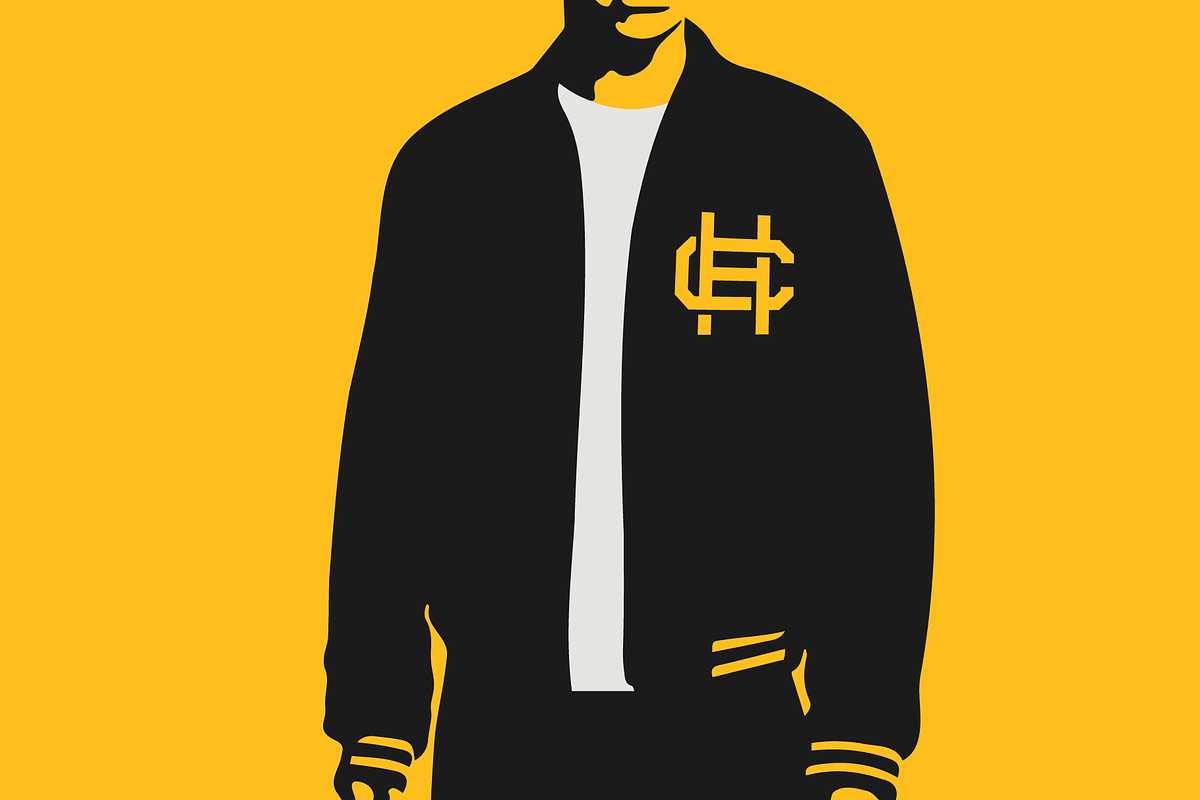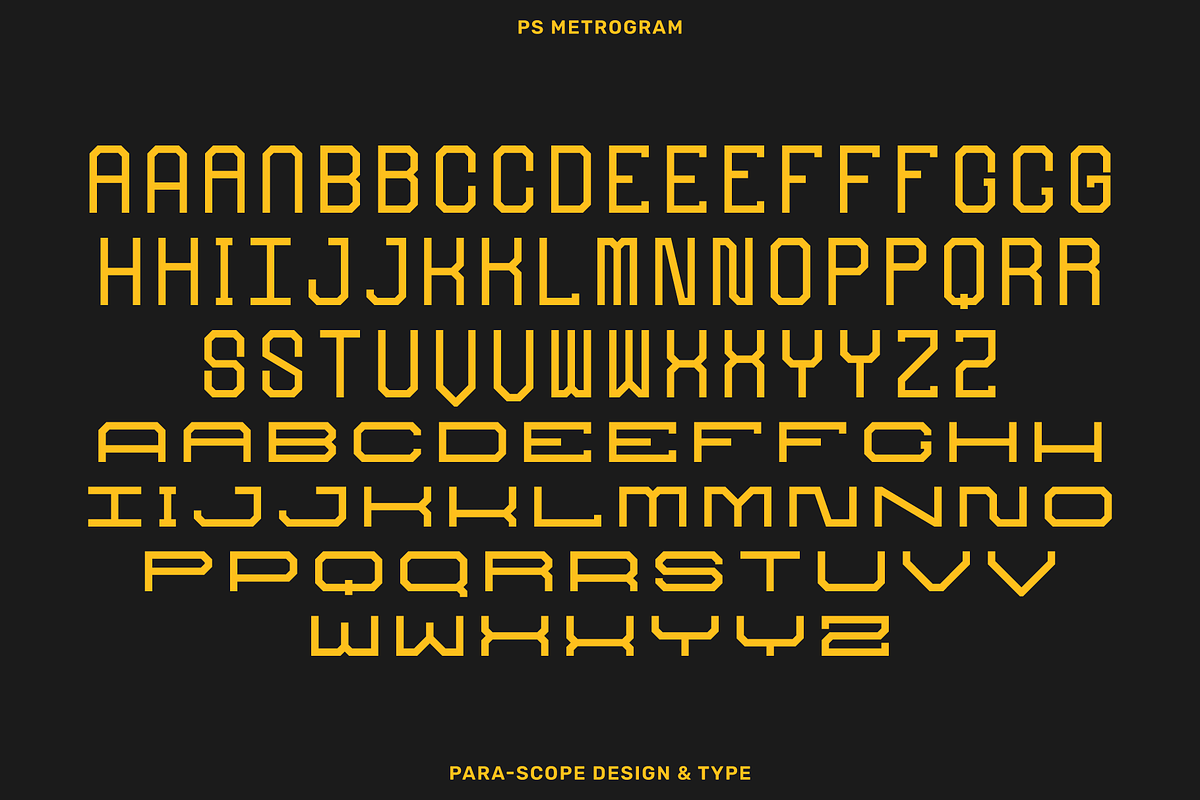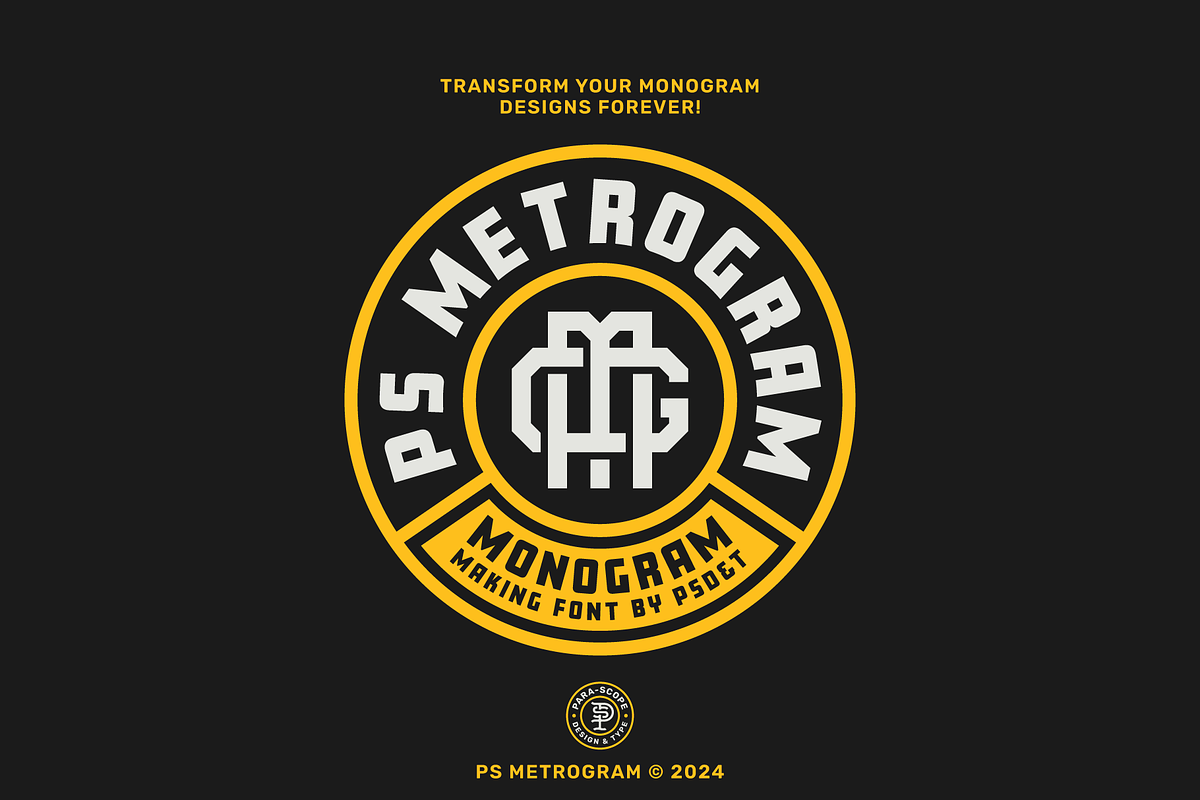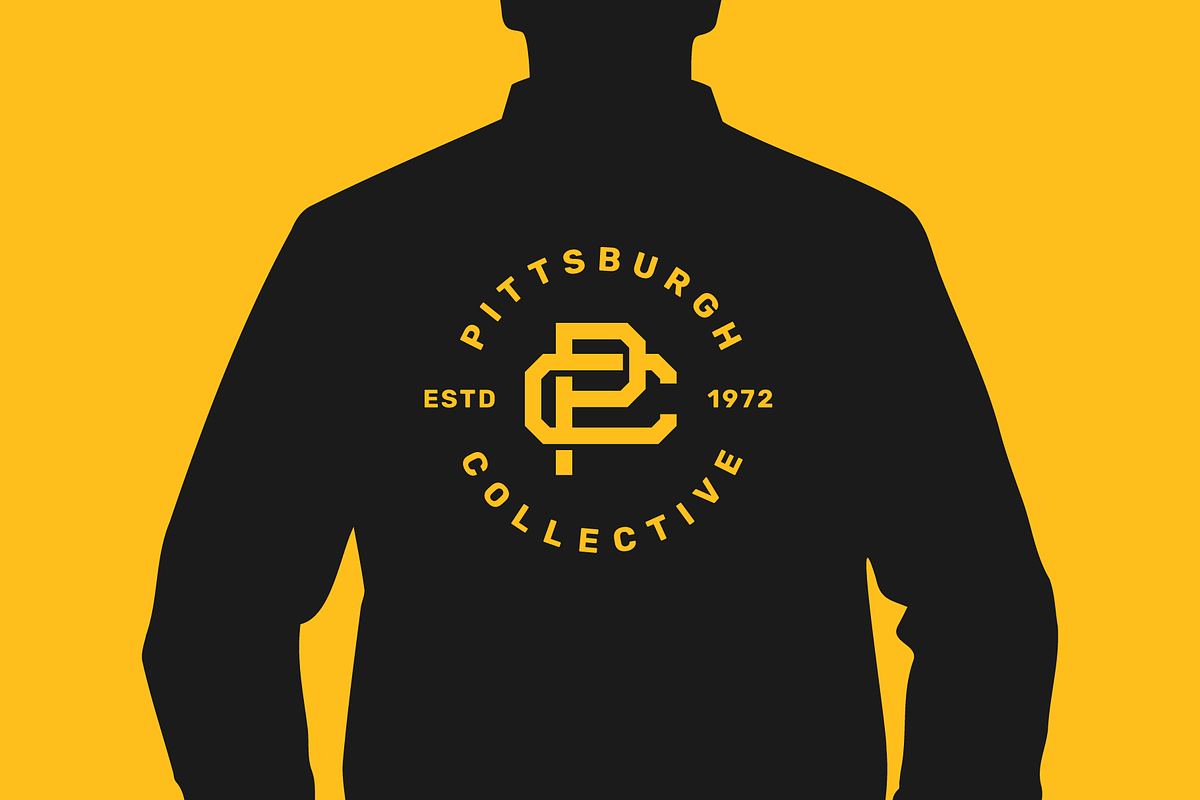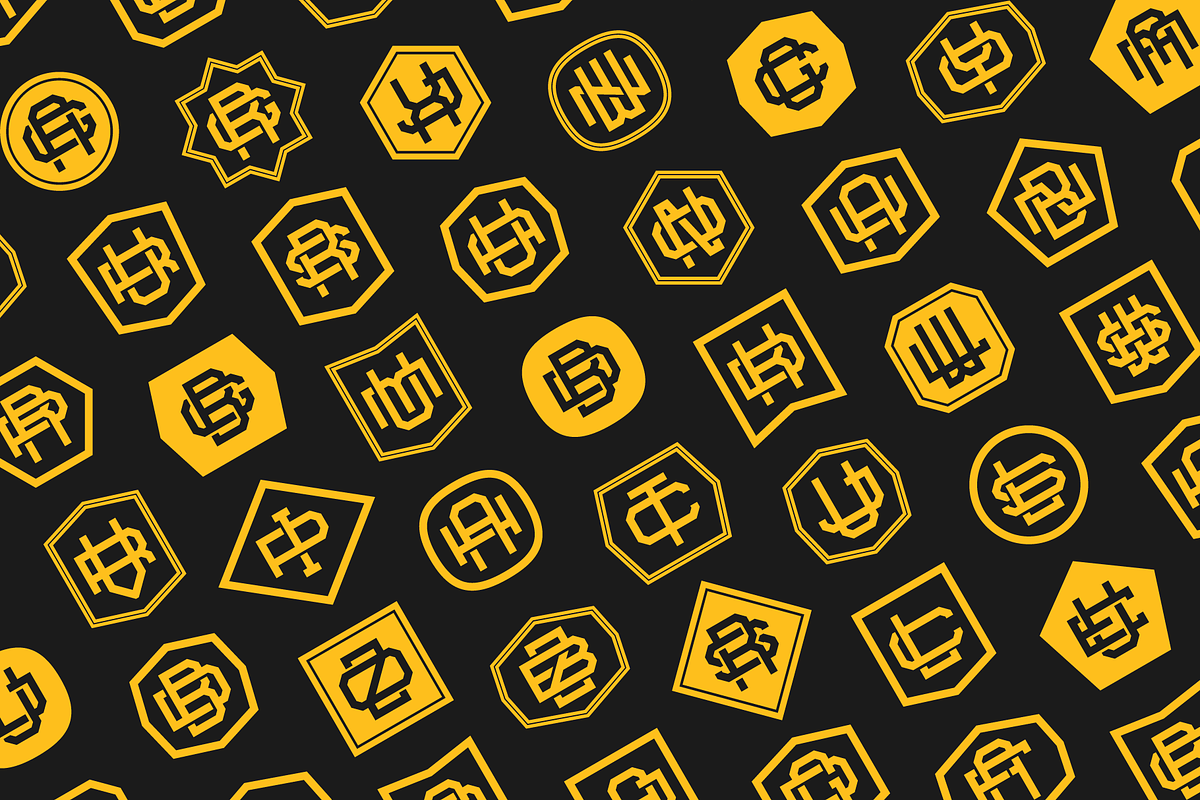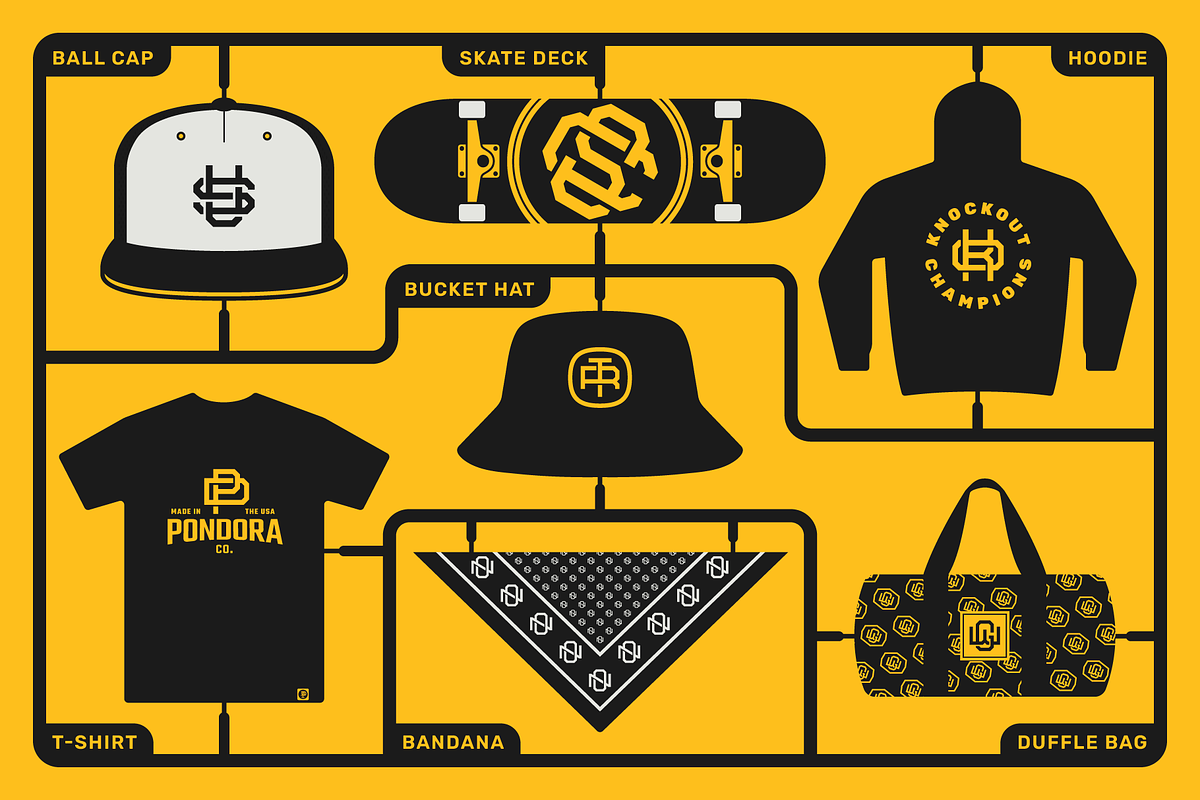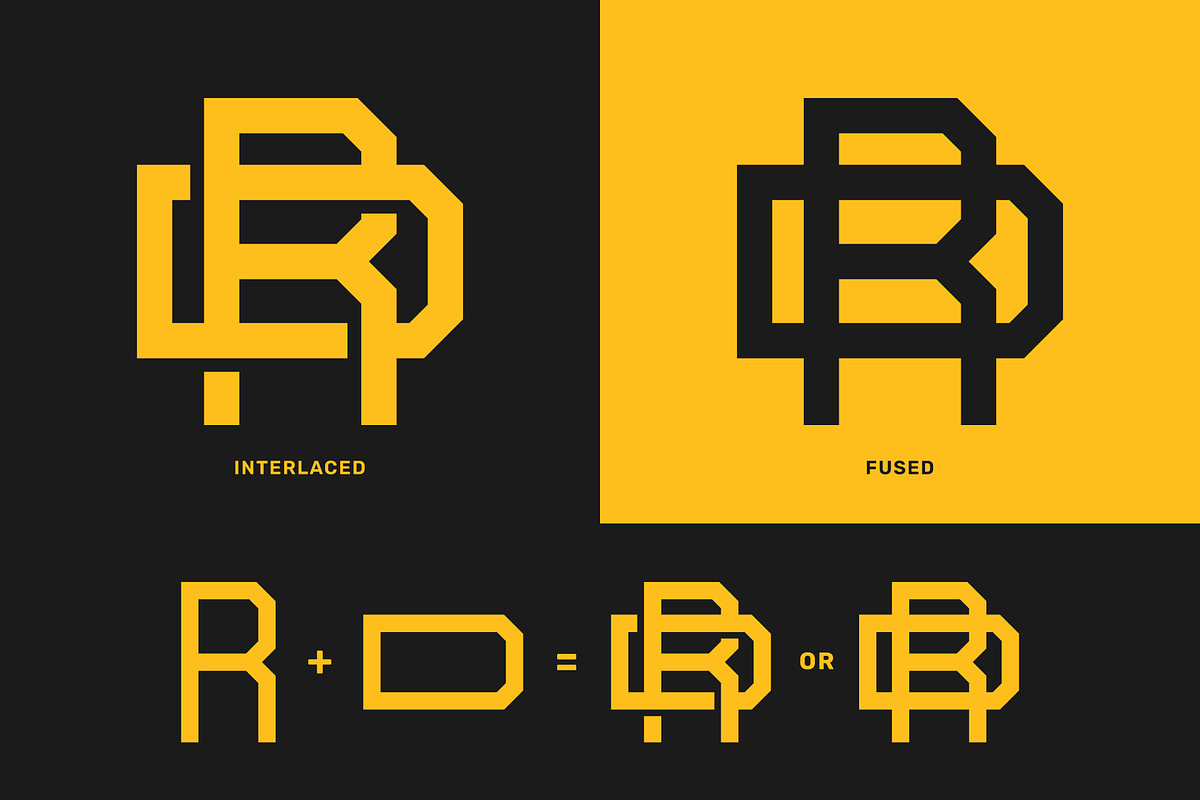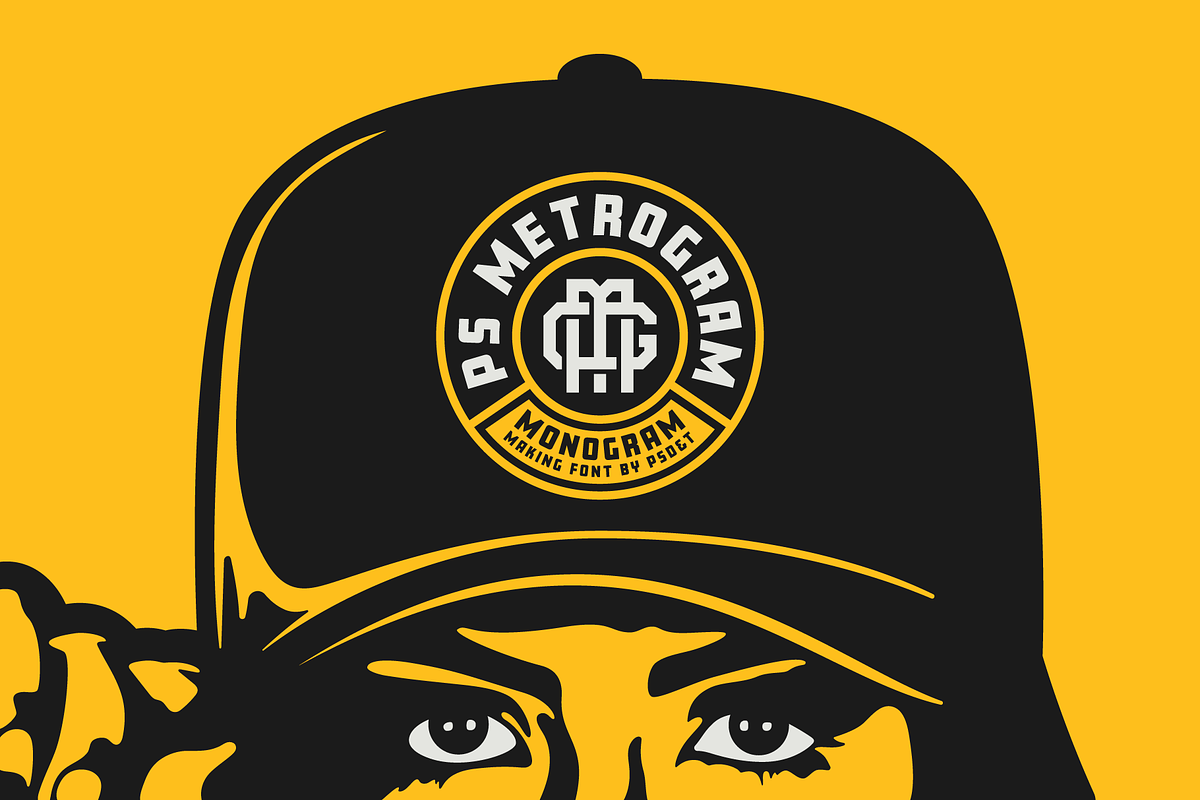
PS METROGRAM - URBAN MONOGRAM FONT
Attention all graphic designers, urban street fanatics, streetwear brands, and monogram enthusiasts – your creative breakthrough is just a few keystrokes away!
Hit the streets with the latest monogram OpenType font by Para-Scope Design & Type, PS METROGRAM – the perfect fusion of modern monograms and the vibrant spirit of urban culture, designed to elevate your creative game.
This font ain't just a typeface; it's your powerful tool for effortless monogram customization. Tailored specifically for you, it makes combining two letters into a monogram a breeze – just type any capital letter followed by any lowercase letter, and watch a monogram masterpiece come to life right before your eyes.
Unleash your creativity with a huge collection of two-letter monogram combos and custom shape glyphs, making instant monogram creation a walk in the park. And the best part? No design expertise required – just swing your fingers across the keyboard and let the magic happen. Imagine having countless ways to express your creativity and style in just seconds. That's what PS METROGRAM offers.
IMPORTANT NOTES: This font is designed with the explicit purpose of creating monograms and is not intended for conventional writing. Therefore, when typing symbols such as periods, commas, question marks, and so on, you will get shape glyphs instead that you can use to build your monograms.
Peep these Benefits:
- Speed & Efficiency: Generate custom monograms in seconds, optimizing your design process and getting your designs done faster.
- Versatility: Perfect for streetwear brand gear, skateboard apparel, monogram logo designs, and any urban style creative projects.
- Ease of Use: No creative expertise needed; just type a capital letter followed by a lowercase letter and just like that, you're a monogram master.
- Mass Appeal: Elevate your brand with stylish, unique monograms that stand out and demand attention.